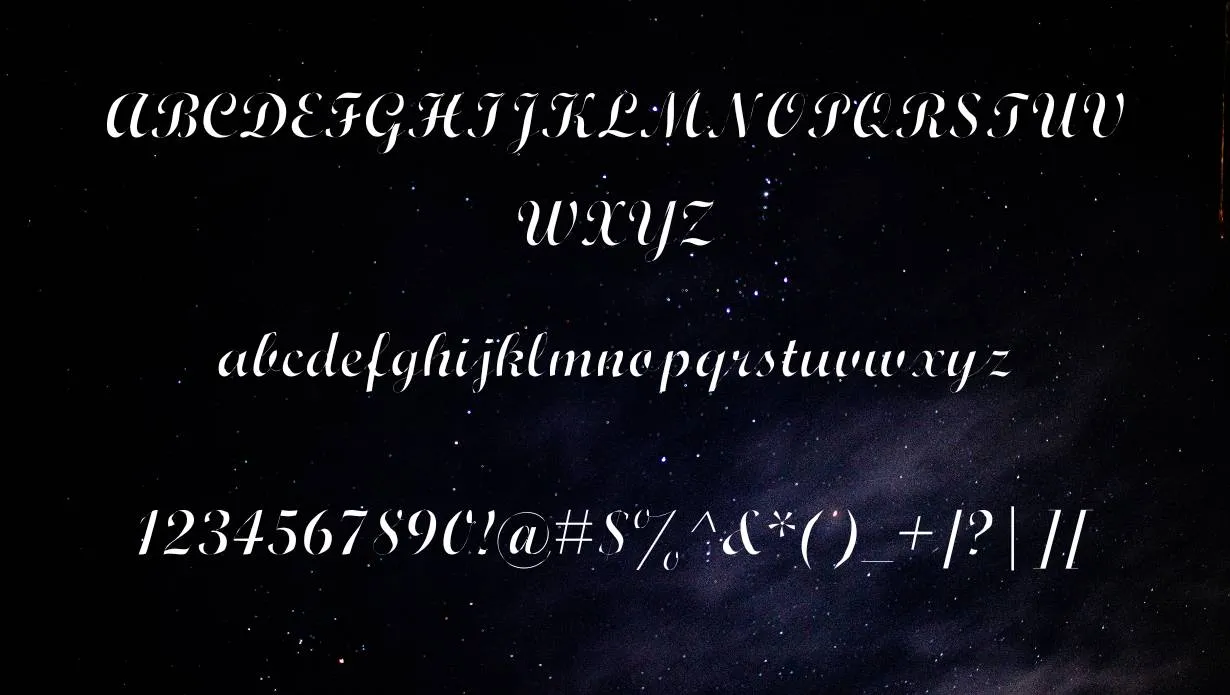
Let’s talk about a very stylish handwritten typeface Wrexham Script Font. This beautiful font with a calligraphy touch was designed by Roger White and manufactured by Type Designer in 1993. It has amazing features it has 247 characters 232 glyphs and 1000 units per Em. The weight of the font is semi-light and its width is medium (normal). Languages supported Latin and Symbols.
| Name | Wrexham Script Font |
| Designer | Roger White |